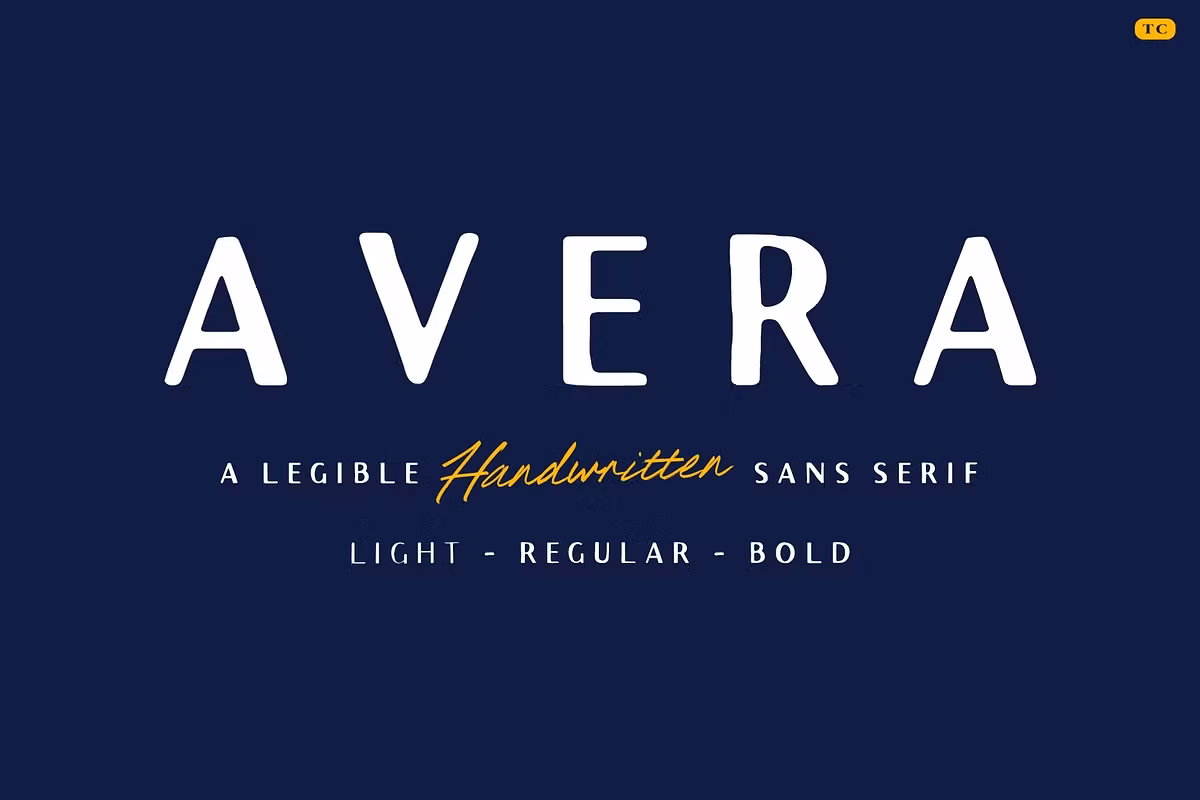
The Avera Sans - Handcrafted Sans-Serif Free Download is a clean, modern typeface that combines the simplicity of a sans-serif with the warmth of handcrafted design. Perfect for creating logos, branding, posters, and web content, this font offers clarity and elegance with a personal touch. Its balanced and geometric letterforms make it highly versatile, suitable for both professional and creative projects. Whether you're working on a corporate brand, an invitation, or a modern design, Avera Sans will provide the perfect typographic solution. Please note, for commercial use, a license purchase is required. However, you can easily download the Avera Sans - Handcrafted Sans-Serif Free Download for free for personal use and explore its creative possibilities. Download the Avera Sans - Handcrafted Sans-Serif Free Download today and elevate your designs with this stylish and sophisticated typeface.